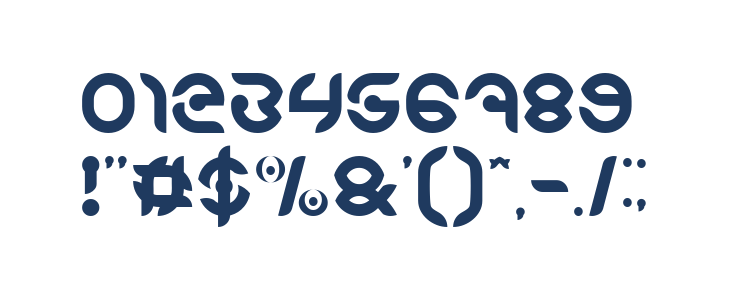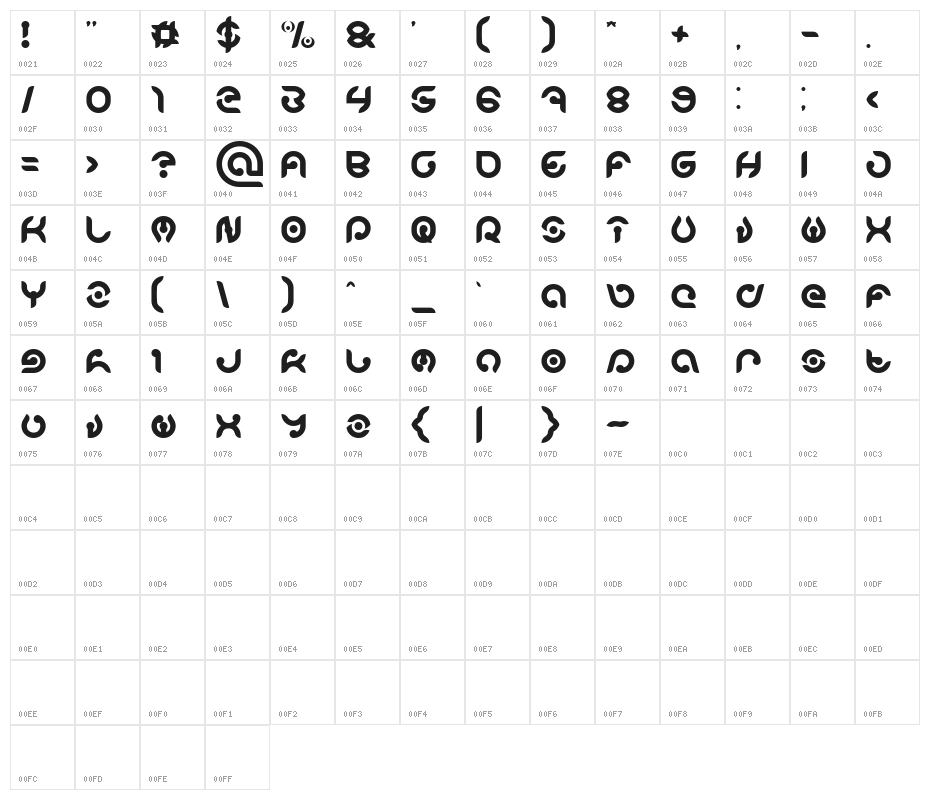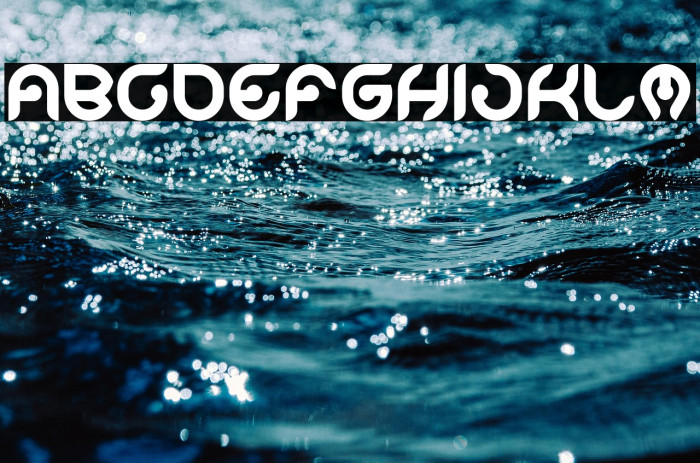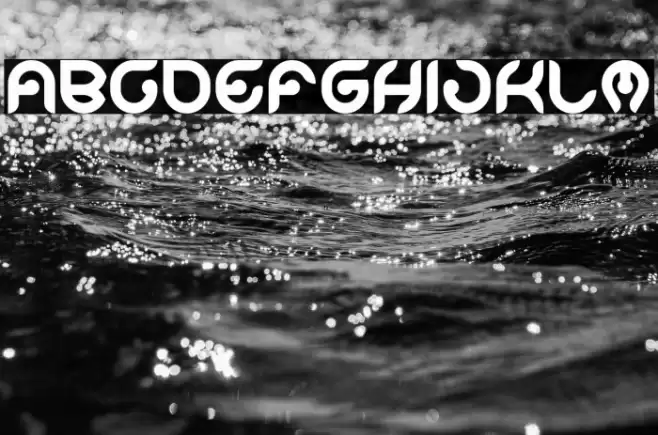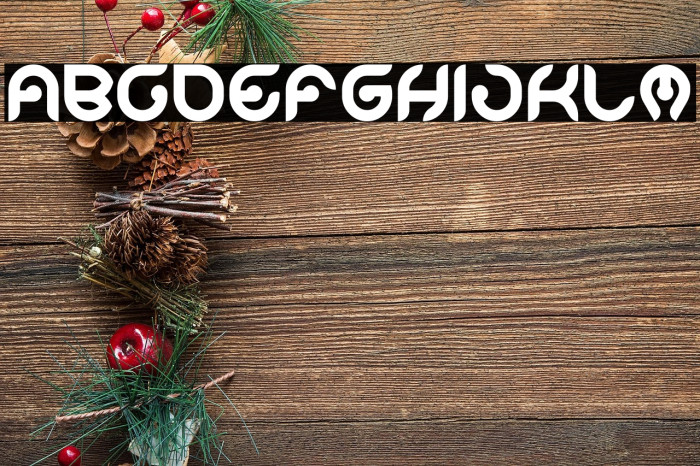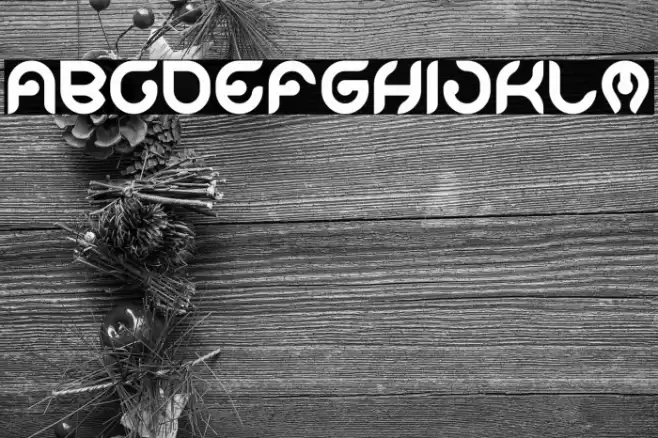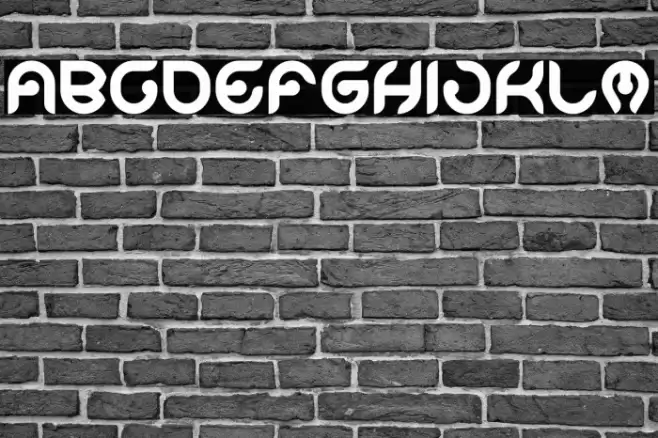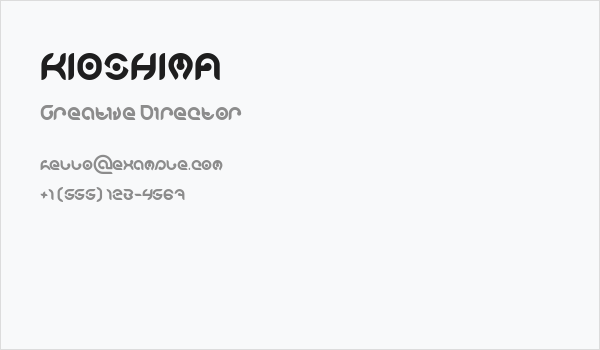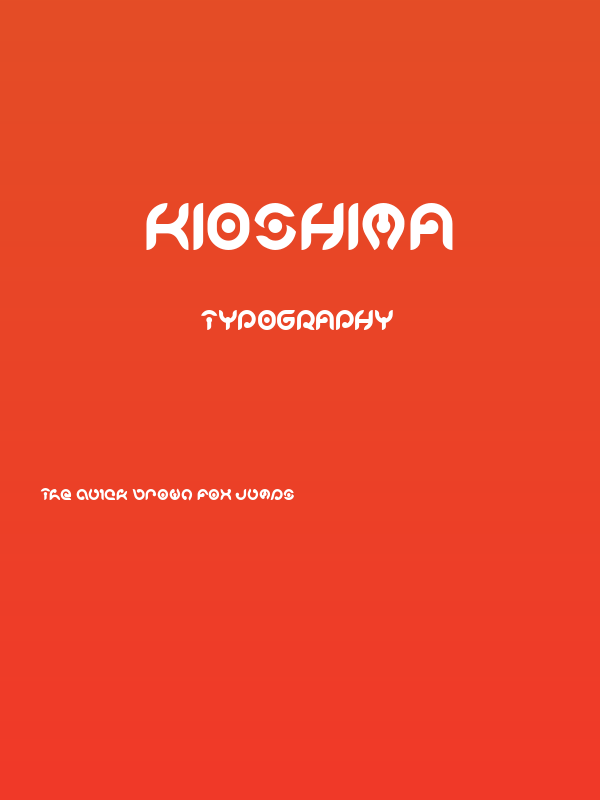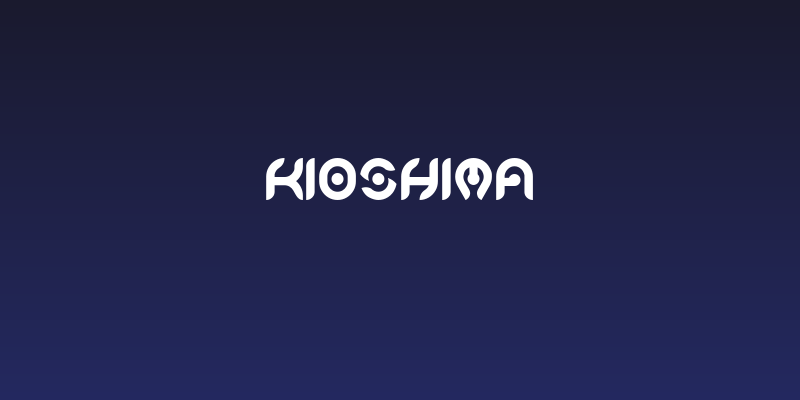
KIOSHIMA Font
KIOSHIMA Description
This font features a bold and futuristic design with a unique, rounded style. The characters are constructed with thick, curved lines that create a sense of movement and modernity. Each letter and number is distinct, with a consistent use of negative space that adds to its visual appeal. The font's geometric shapes and smooth curves make it stand out, offering a playful yet sophisticated look. It's ideal for projects that require a modern and eye-catching typeface, such as branding, advertising, and digital media.
| Proposed Projects | Ideal for branding, advertising, digital media, and modern design projects. |